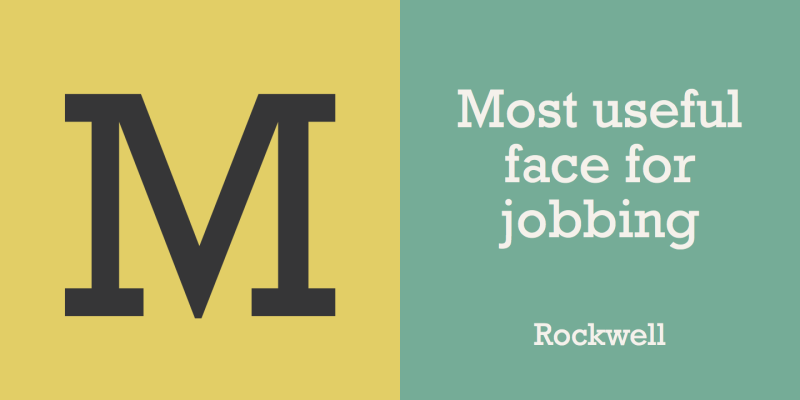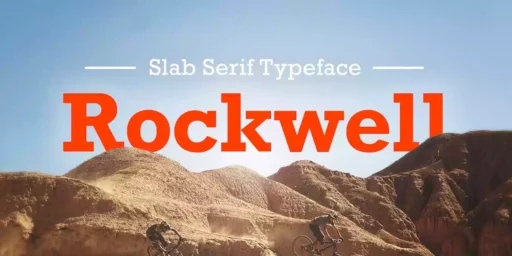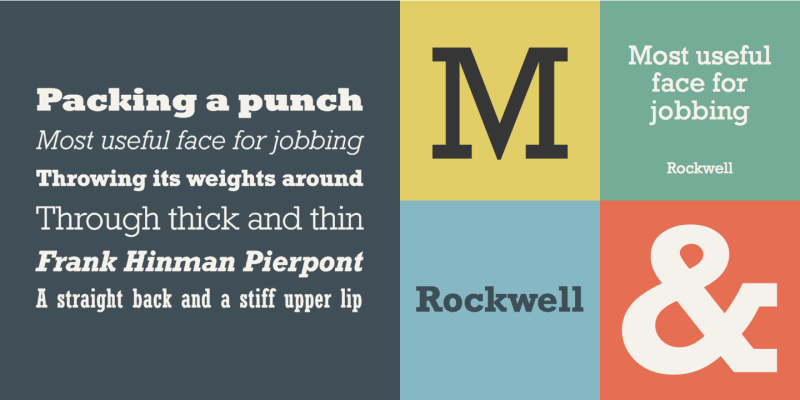
Rockwell Font
Rockwell is a slab serif font family which has it’s history dates back to the beginning of the twentieth century when the use of slab serif fonts was on the rise in advertising and signage. Monotype a famous type foundry designed it in 1934. At first it’s name was “Litho Antique” a creation by Frank Hinman Pierpont, a typographer who also created such fonts as Monotype Goudy and Times New Roman.
The font was later on given the name ‘Rockwell’ with respect to Rockwell Manufacturing Company, which was one of the biggest customers of the Monotype Corporation. Rockwell was quickly able to capture the attention of many due to the characteristics of its design. It has a geometric feel, which makes it perfect for headlines, posters, and other display purposes. Due to its simplicity and boldness make it an ideal choice for advertising and promotions, as it gives a message of an up-to-date and powerful image.
Some specific characteristics of Rockwell make the typeface unique and play a role in making this typeface popular up to the present time. This is evident in the slab serifs, which are thick and rectangular in shape; the font exhibits a rather bold and geometric look. The letterforms’ width differs only slightly, and the differentiation between the thick and thin parts of the stroke is small. This gives Rockwell a solid and harmonious character, and the font is clear of any size.
One of Rockwell’s other characteristics is its clearly geometric construction. The lettering is based on basic geometric shapes like circles, squares, and triangles. This makes the font look more minimalistic and fresh, but at the same time, it incorporates a reference to the history of typography. Many designers and publishers used geometric fonts in pre-modern printing and advertising. Rockwell’s general appearance is a combination of the traditional and the new, which makes it very suitable for most design interventions.
With the features above mentioned, Rockwell is a very versatile font that has found its way into many media and applications. In print, it is suitable for headlines, posters, book covers, and any other purpose that demands the use of a bold and geometric font to create a great impact. It is also relatively easy to read and, therefore, suitable for body text, especially in smaller chunks of text.
For Rockwell, the digital media is the place to be, especially on websites, blogs and other online forums. Its simple and bold layout is easily adaptable to any screen and that is why it is widely used by web designers and developers. Furthermore, Rockwell is often seen in logo and other forms of business communication and marketing, which has a conservative and enduring image that helps to create the image of a reliable and competent company.
Where Rockwell Font works best
Sports & outdoor brands
Slab serifs like Rockwell Font feel sturdy and confident — perfect for athletic, outdoor and automotive branding.
Editorial headlines
Strong slabs anchor magazine headlines and blog titles.
Packaging
Coffee, craft beer and hardware packaging often lean on slab serifs for a trustworthy look.
What is Rockwell Font good for?